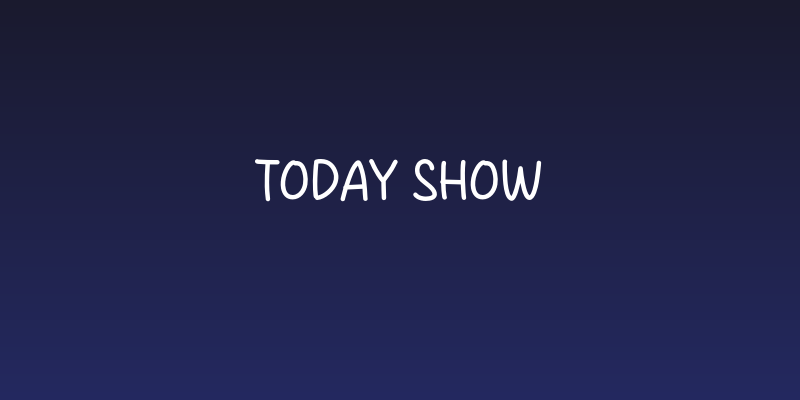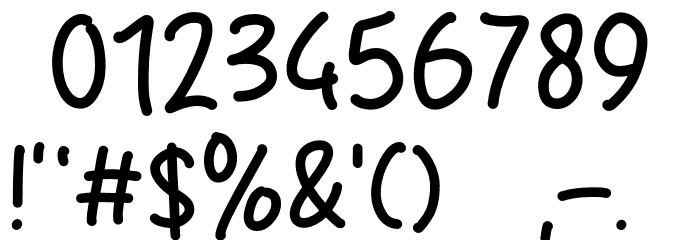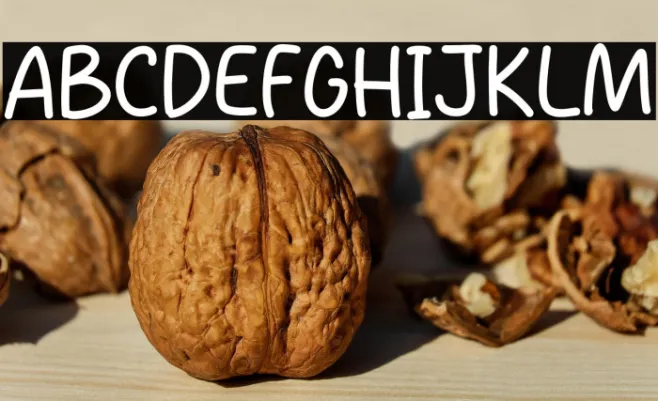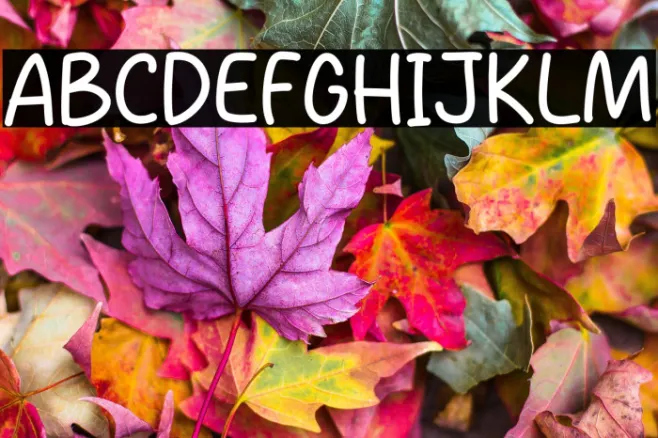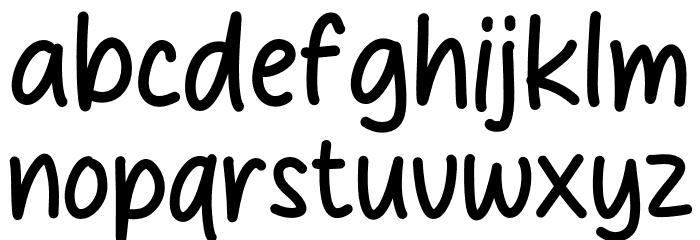
Today Show Font
Today Show Description
This font features a playful and casual handwritten style, characterized by its smooth curves and slightly irregular letterforms. The uppercase and lowercase letters maintain a consistent flow, giving it a friendly and approachable appearance. The numerals and special characters are designed to complement the overall aesthetic, making it versatile for various uses. Its informal style is perfect for projects that require a personal touch, such as invitations, greeting cards, or creative branding. The font's legibility is enhanced by its medium contrast and normal character spacing, ensuring readability across different sizes.
| Use Case | Invitations, Greeting cards, Creative branding |
| Proposed Projects | Ideal for invitations, greeting cards, creative branding, and personal projects. |